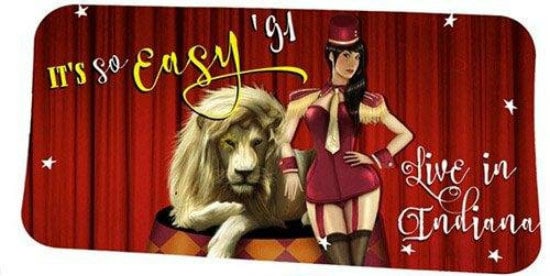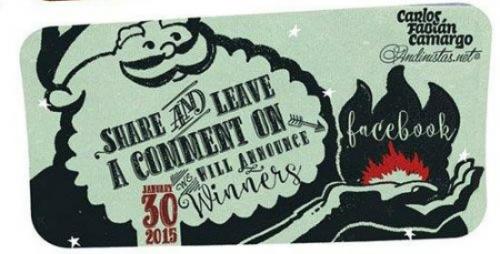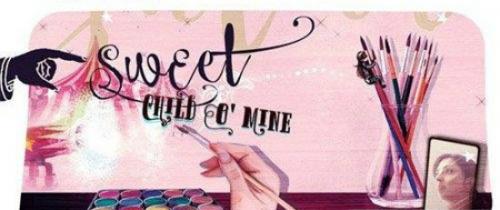
Cereal is a font family designed by Carlos Fabian Camargo. Its 5 fonts work in groups or independent. All are designed for composition of words and phrases that need to communicate warm and craft climate. Due to its high imaginative content it is useful in designing book covers, cards, logos, posters, wedding invitations, stamps, etc.
Cereal Script, Caps and Shadow each containing over 700 programmed glyphs with opentype functions that inject greater spontaneity in alternate ligatures and different possibilities of letters with elongated lines that function as ascending, descending at the beginning, middle or end of words. Cereal Words has over 60 glyphs with special words for ranking and attract attention. Cereal Dingbats has over 55 drawings alluding to decorative themes.